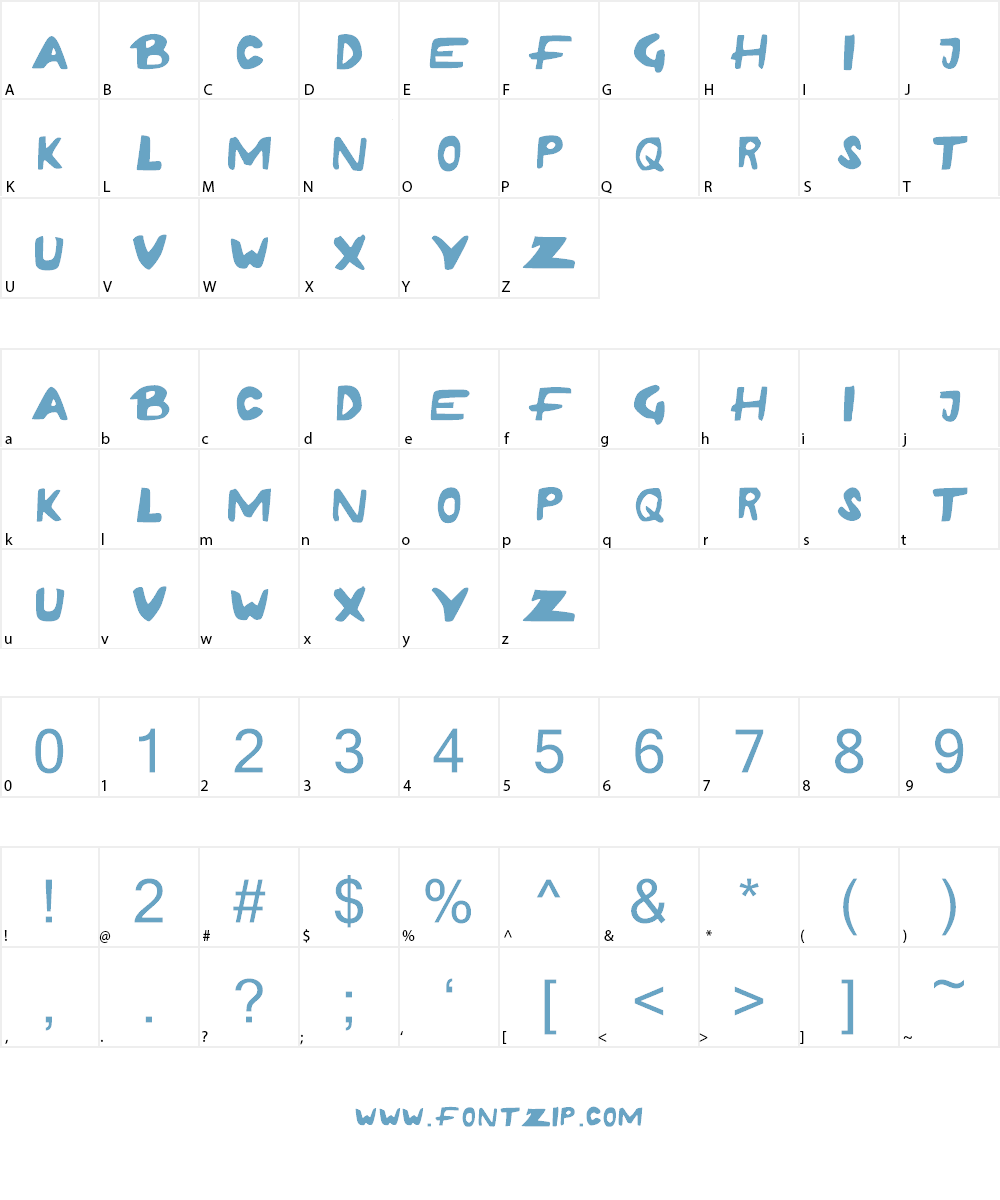
A handmade display font, rough font with tons of character. Every character in this font was hand crafted with calligraphy pen to give a completely authentic look.